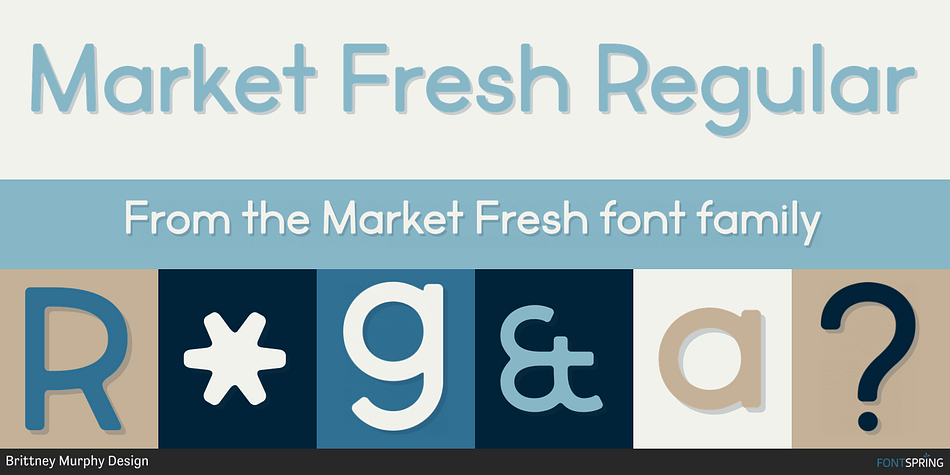
Market Fresh Regular
Market Fresh is a display sans and sans serif font family. This typeface has three styles and was published by Brittney Murphy Design.
The Market Fresh Font Family is a set of open, clean sans, inspired by old-style retro headlines. Each font contains over 500 characters, including Latin, Greek, Cyrillic & more.